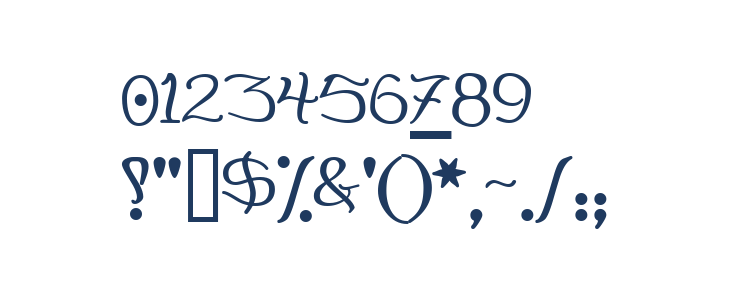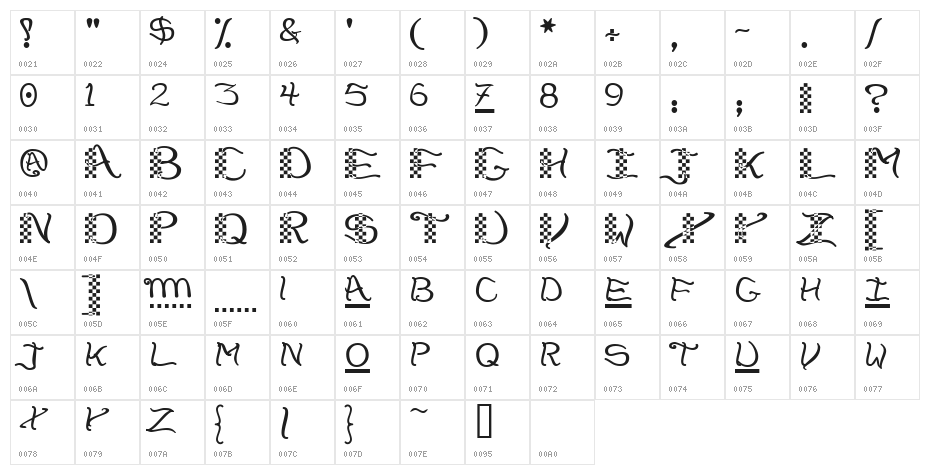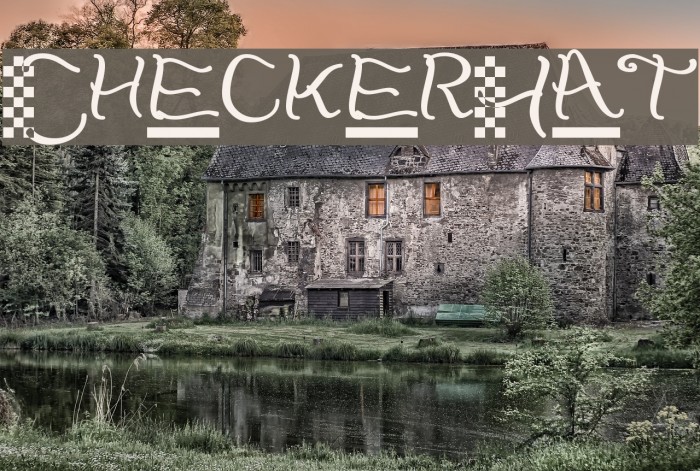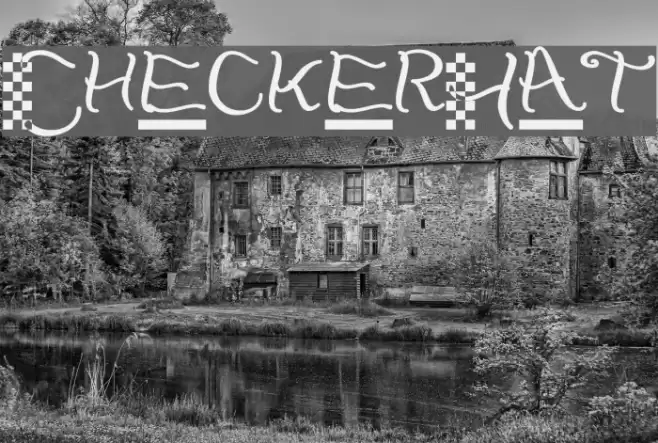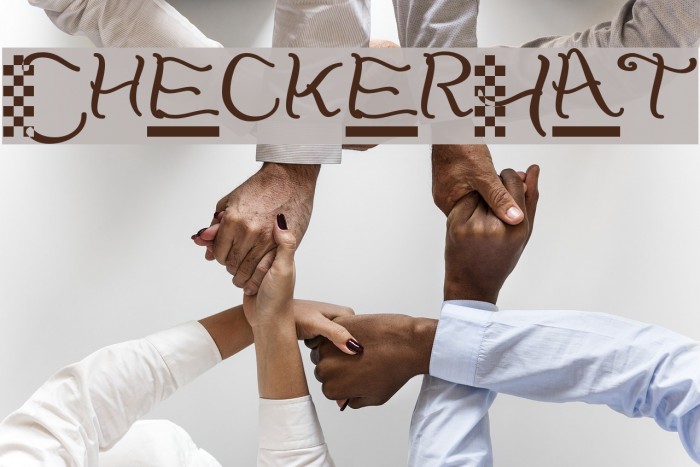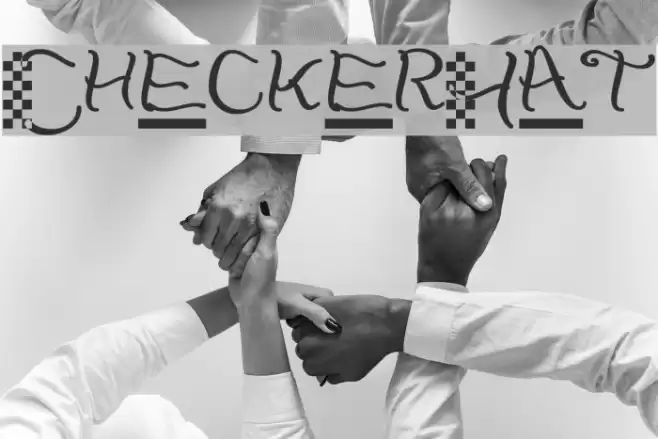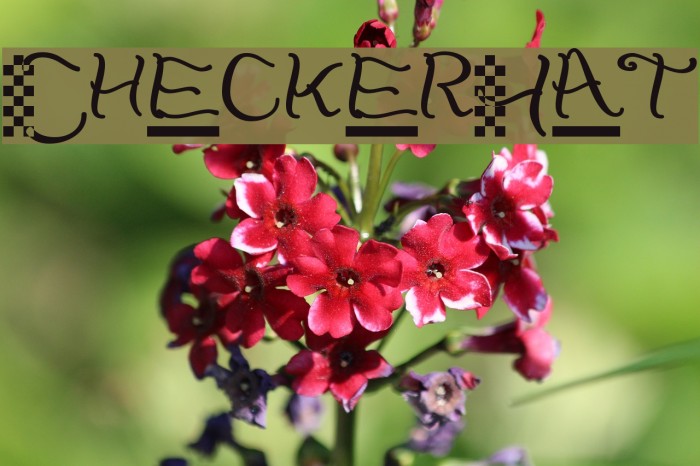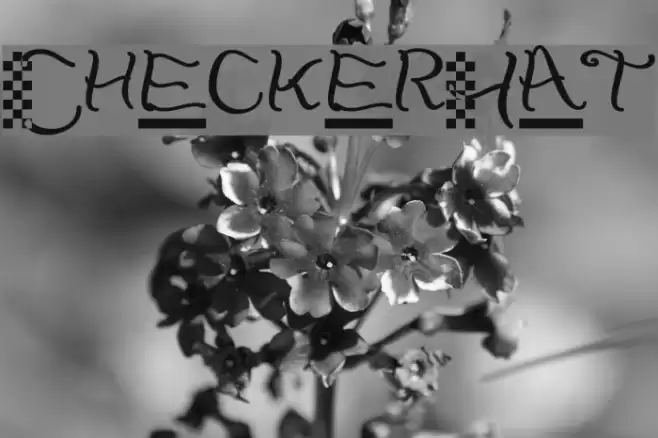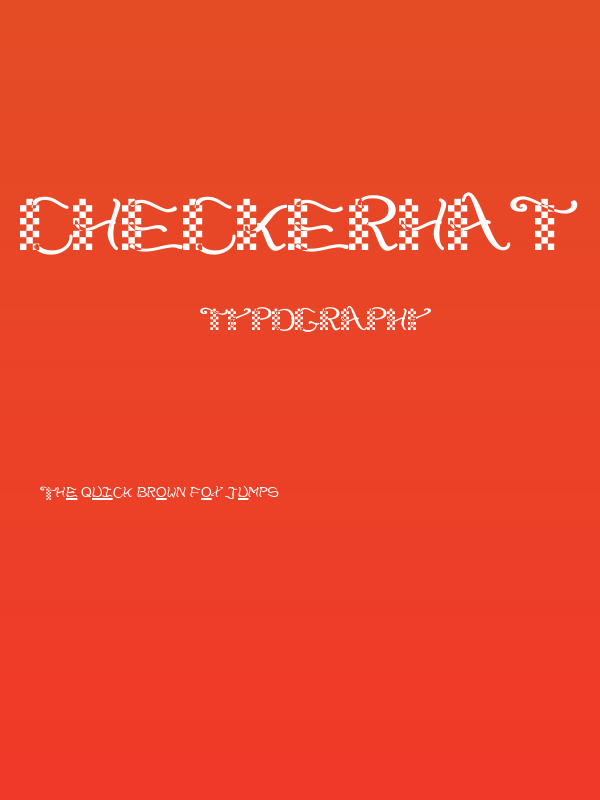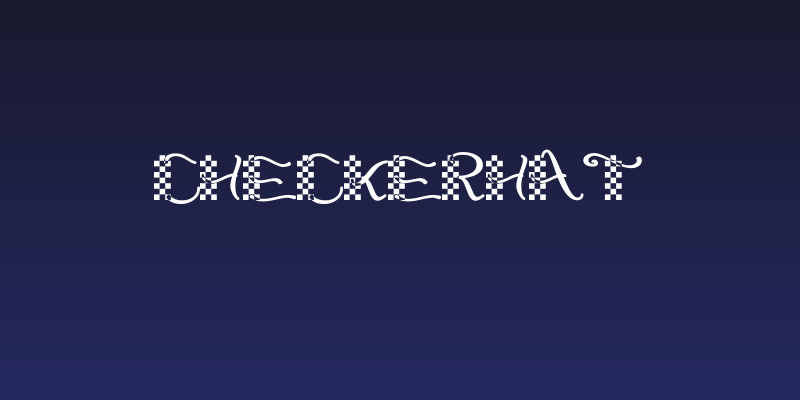
CheckerHat Font
CheckerHat Description
This font features a unique and playful design with a checkerboard pattern integrated into the uppercase letters, creating a dynamic and eye-catching effect. The lowercase letters exhibit a whimsical, handwritten style with fluid strokes and slight variations in line thickness, adding a touch of elegance and creativity. The numerals are bold and maintain the same playful aesthetic, ensuring consistency across all characters. Special characters are designed with similar flair, making them suitable for decorative purposes. Overall, this font combines elements of fun and sophistication, making it ideal for projects that require a distinctive and artistic touch.